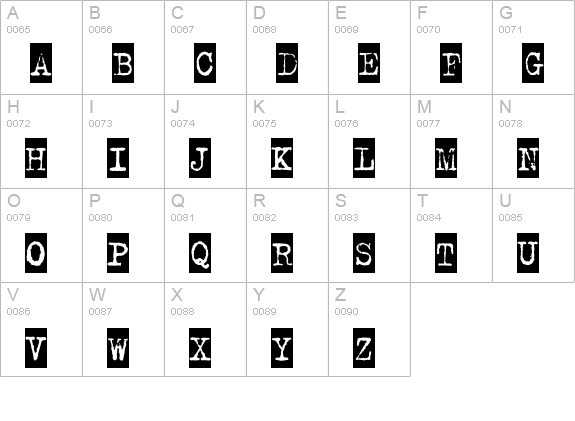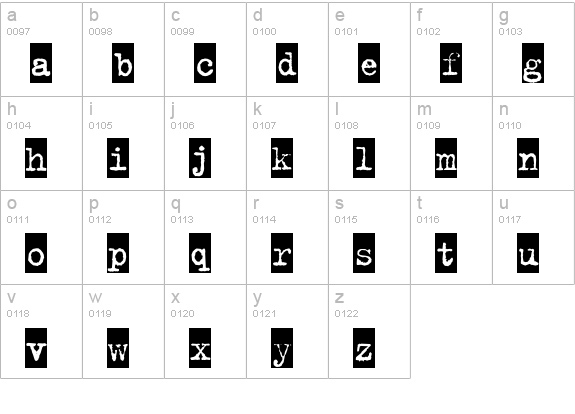
Introducing TrixieCyr-Cameo, a captivating and versatile font that is sure to leave a lasting impression. With its exquisite design and elegant curves, this typeface exudes sophistication and charm. TrixieCyr-Cameo is perfect for a wide range of creative projects, including logos, branding, packaging, invitations, and more. One of the standout features of TrixieCyr-Cameo is its seamless blend of classic and contemporary elements. The delicate serifs and intricate details add a touch of vintage elegance, while the clean lines and modern twists give it a fresh and dynamic feel. This unique combination allows for endless possibilities and ensures that your designs will stand out from the crowd. But what truly sets TrixieCyr-Cameo apart is its availability as a free font. That's right, you can easily download this stunning font at FontsMarket.com, completely free of charge. This means that you can enjoy all the beauty and versatility of TrixieCyr-Cameo without any cost or restrictions. Whether you're a professional designer or a passionate hobbyist, TrixieCyr-Cameo is the perfect addition to your font collection. Its versatility allows it to effortlessly adapt to any project or style, making it a reliable choice for all your typographic needs. From elegant wedding invitations to eye-catching posters, this font will bring a touch of refinement and sophistication to your designs. So why wait? Experience the beauty and flexibility of TrixieCyr-Cameo today. Download it for free at FontsMarket.com and unlock a world of endless creative possibilities. Don't miss out on this incredible opportunity to enhance your designs with a truly remarkable font.